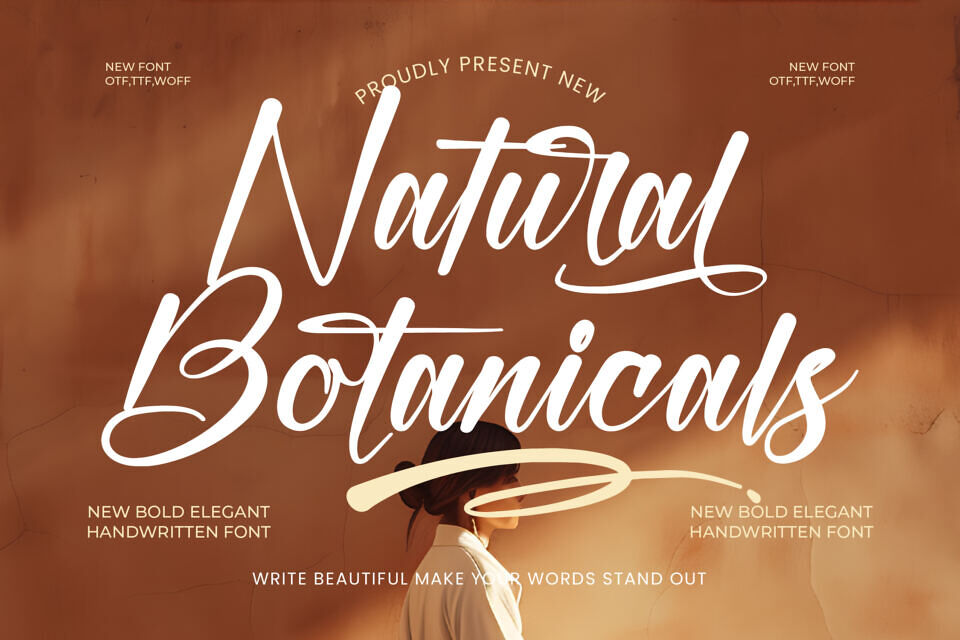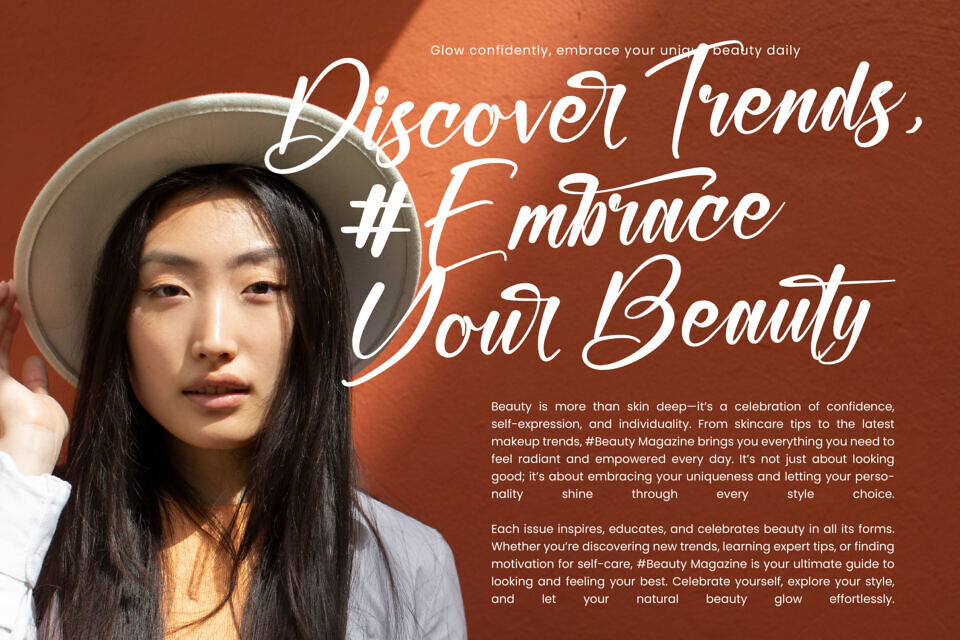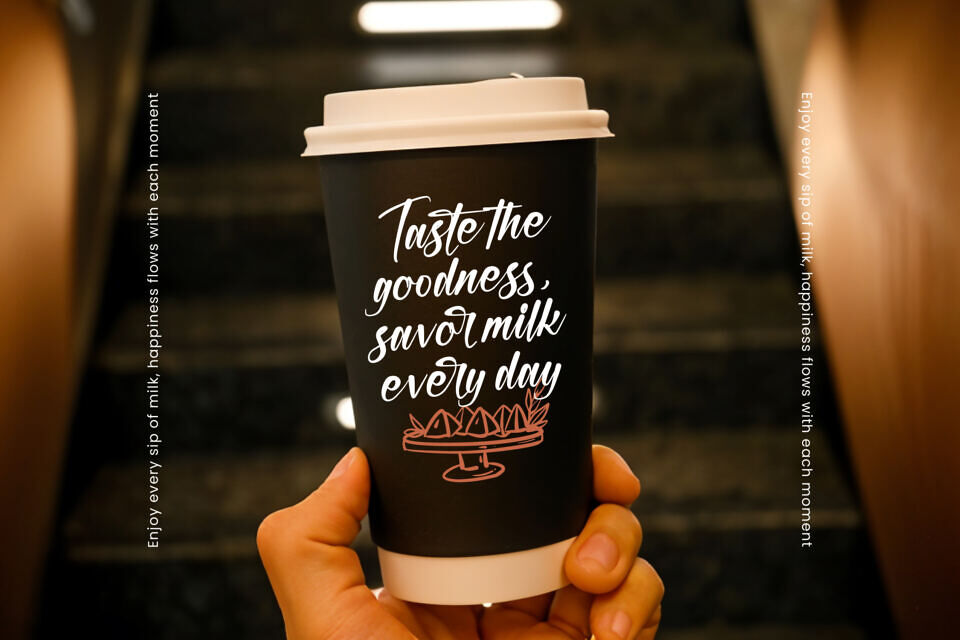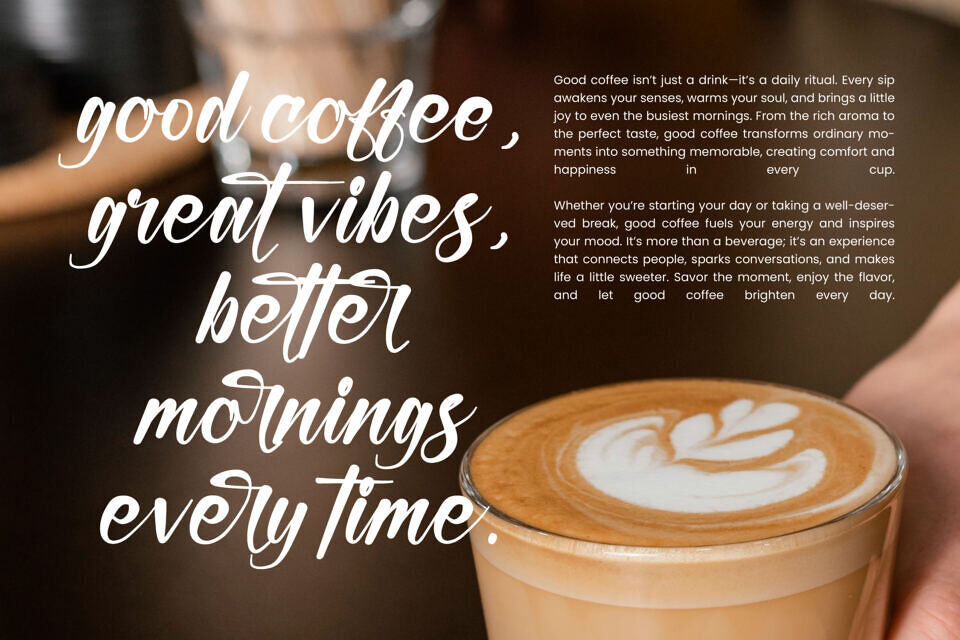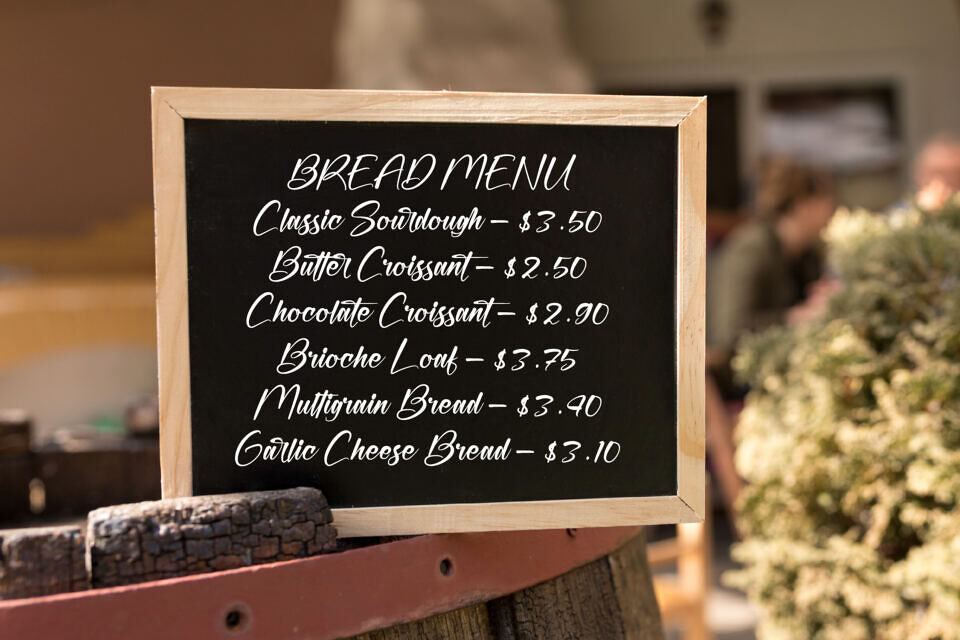
Natural Botanicals Font
Natural Botanicals is a bold handwritten font that blends elegance, confidence, and natural beauty into a distinctive typographic style. Designed with smooth flowing strokes and refined handwritten details, this font creates a sophisticated look while maintaining an organic and approachable character.
Its strong presence and graceful movement make Natural Botanicals an excellent choice for premium branding, fashion labels, beauty products, packaging design, editorial layouts, and social media campaigns. Every letter is crafted to deliver a stylish and memorable impression, helping your designs stand out with effortless elegance.